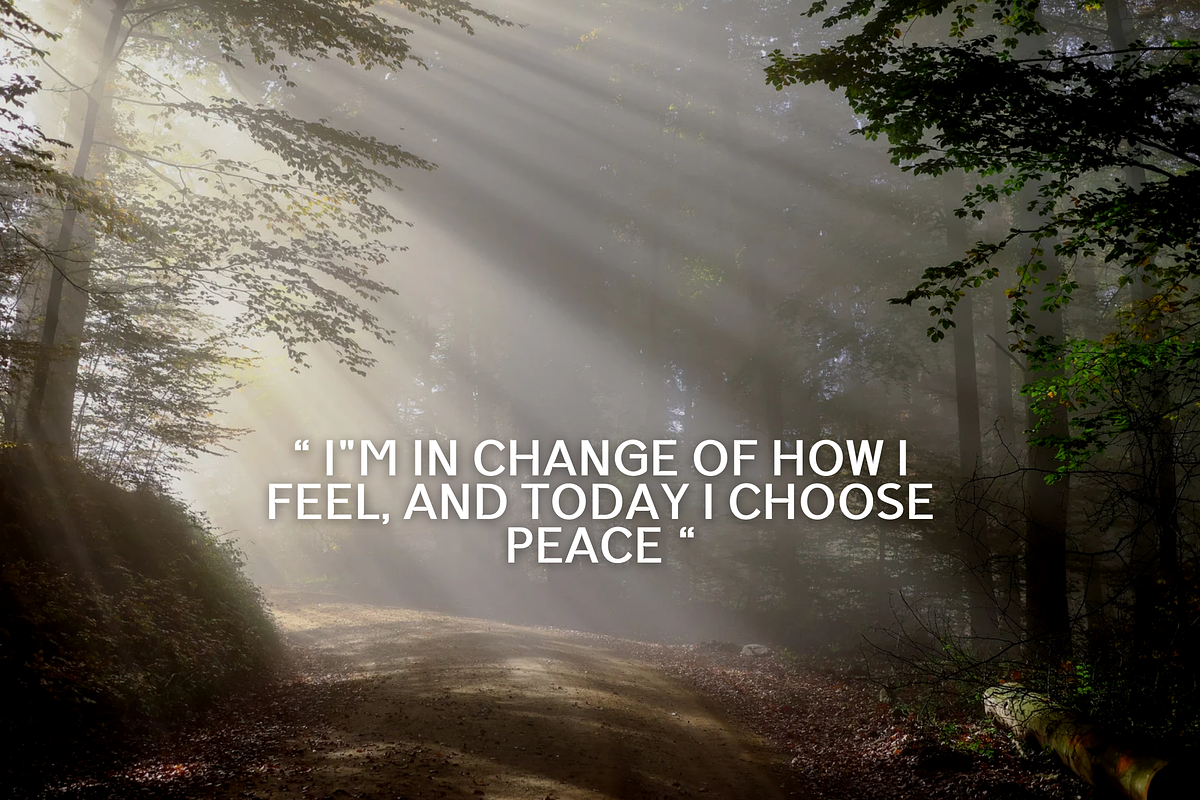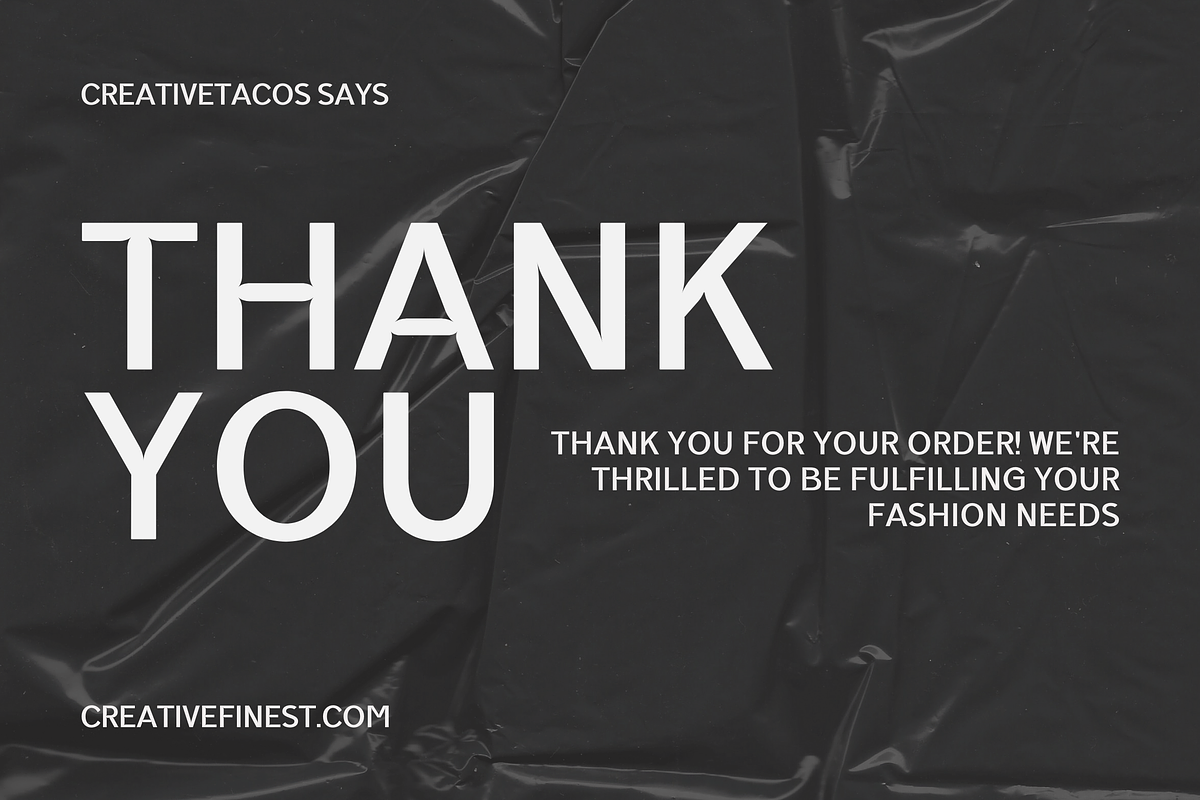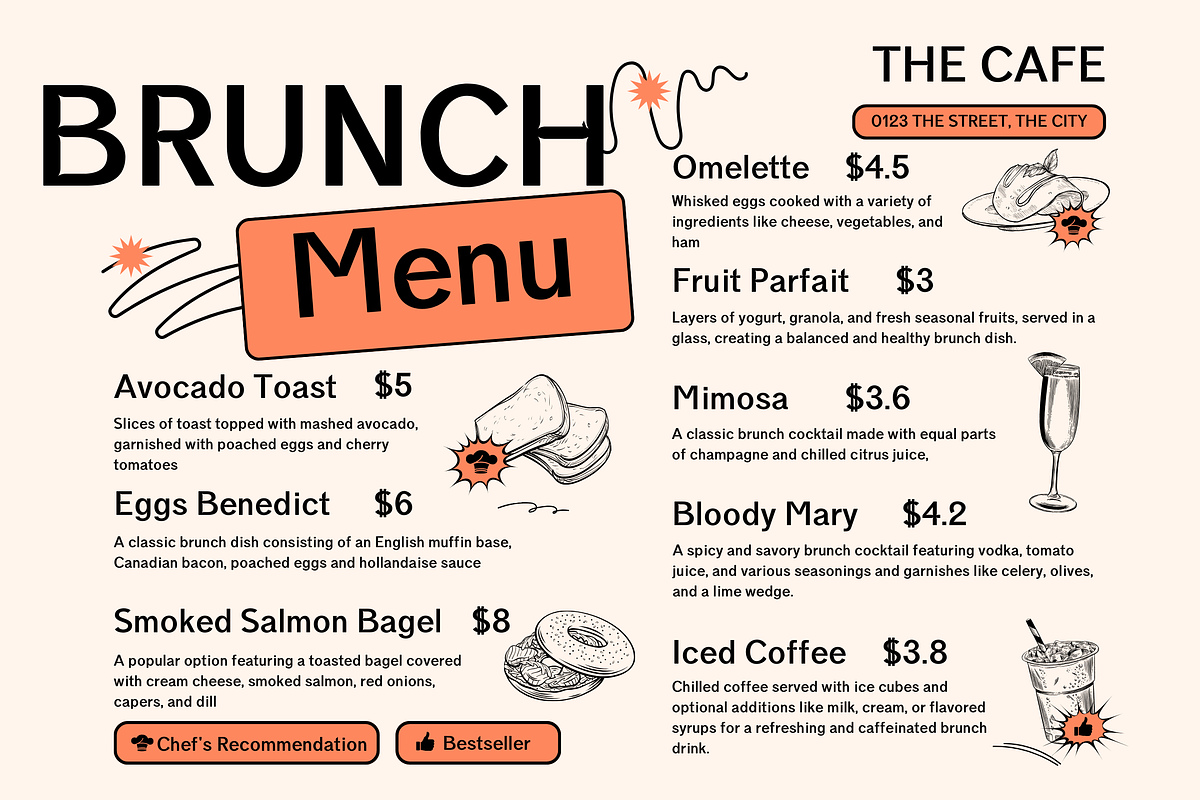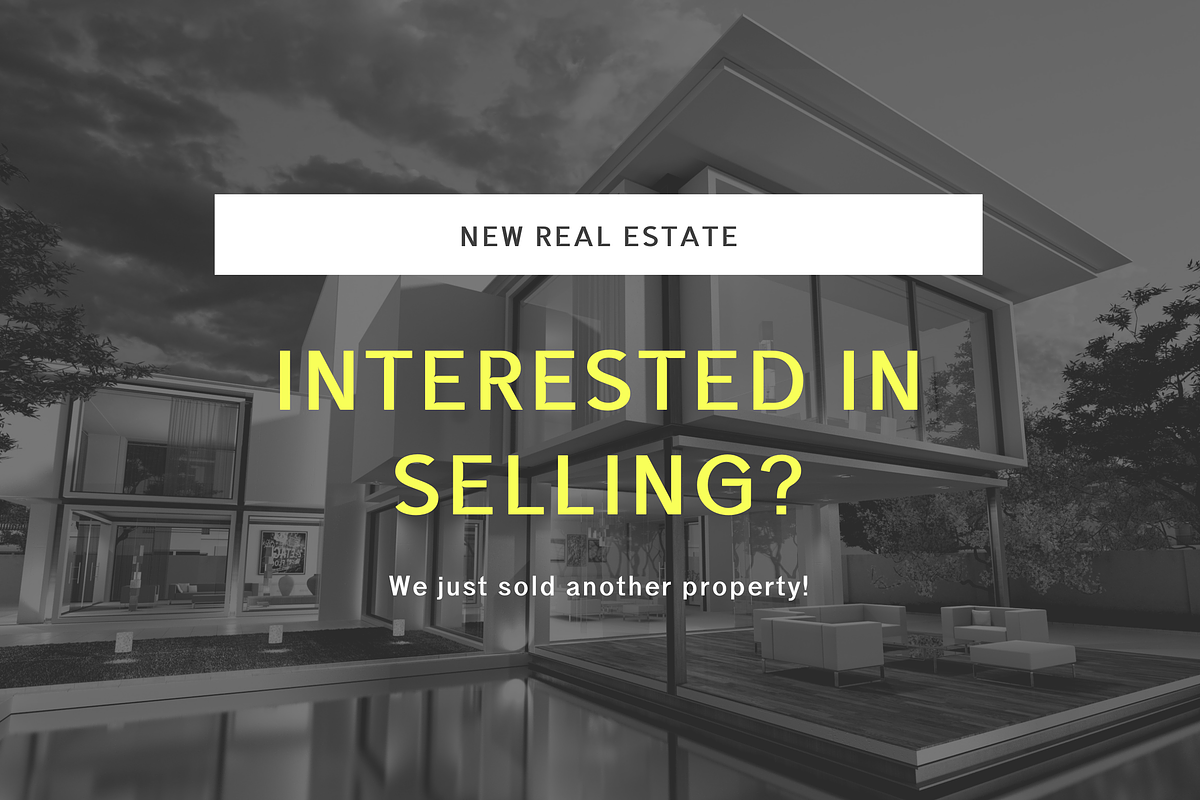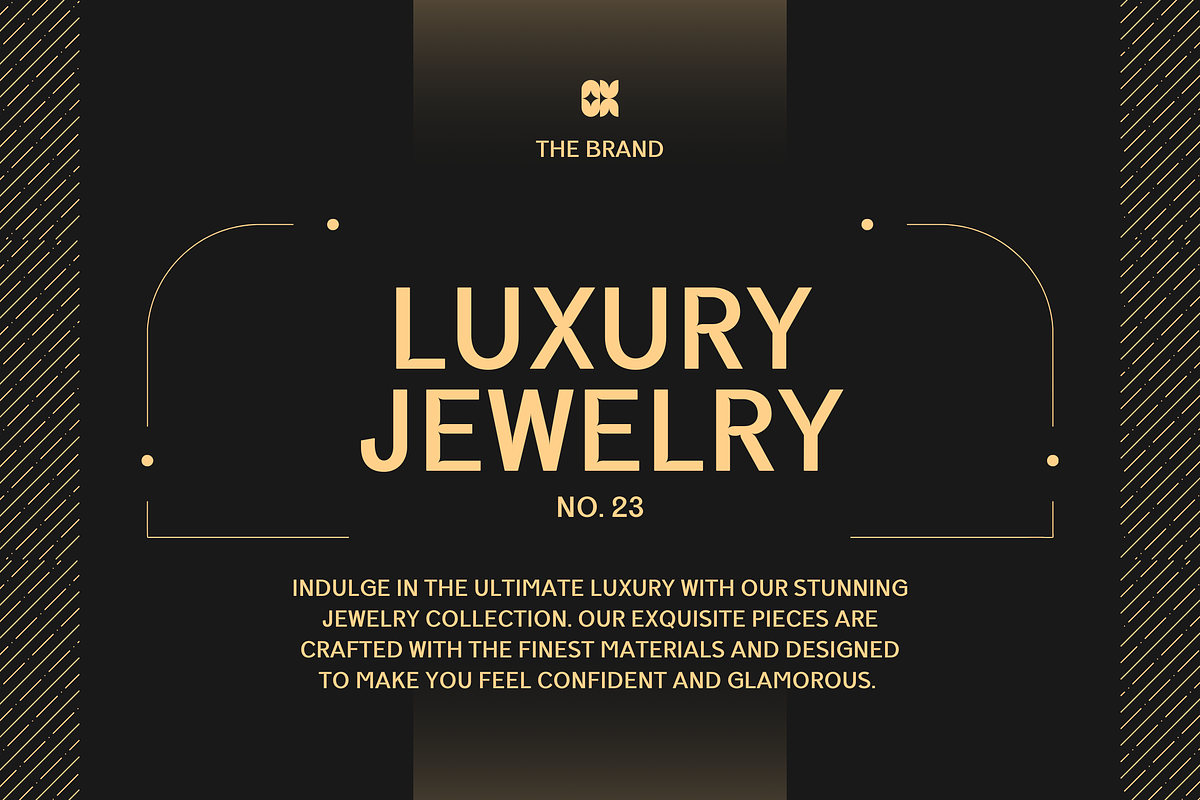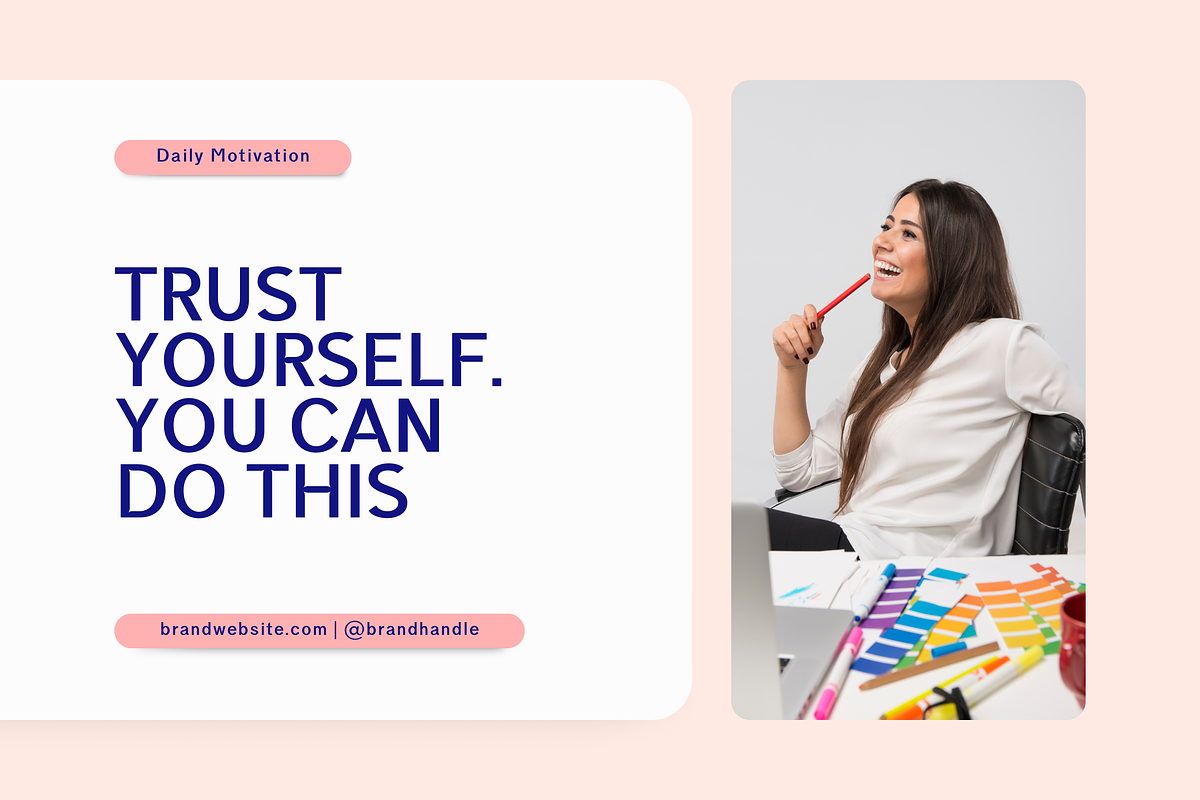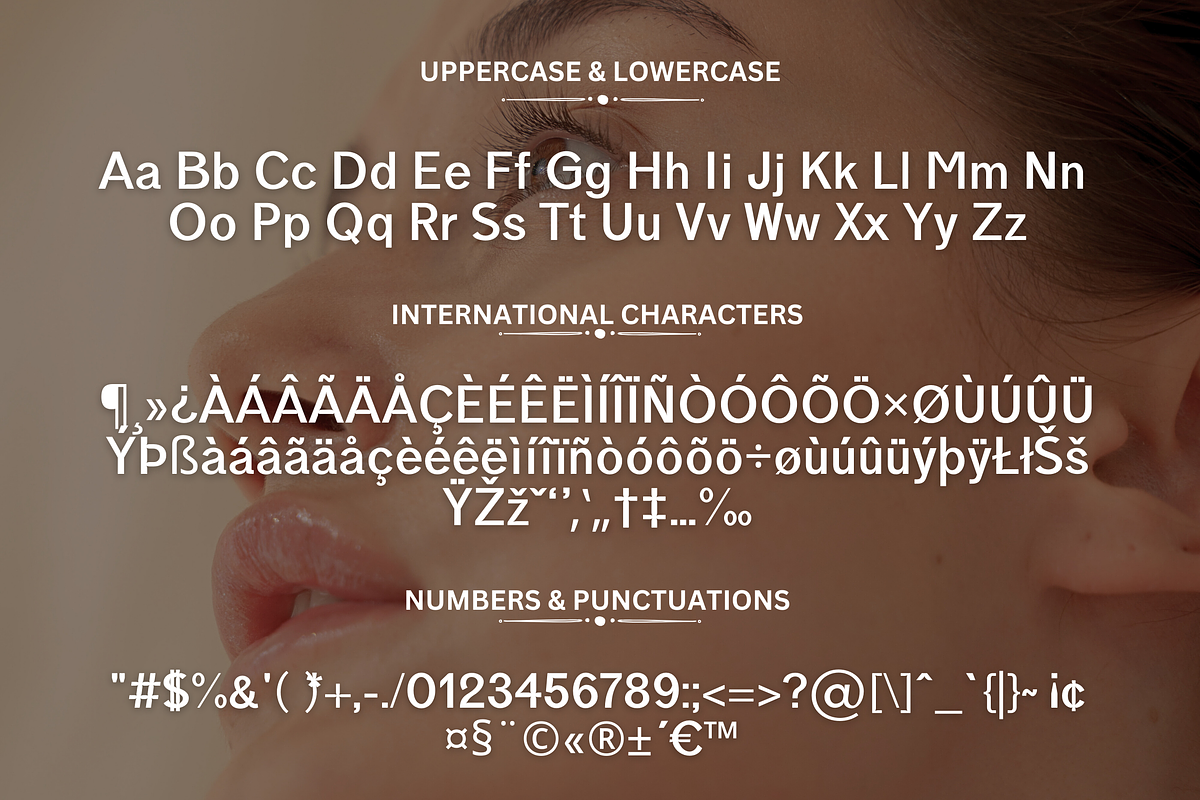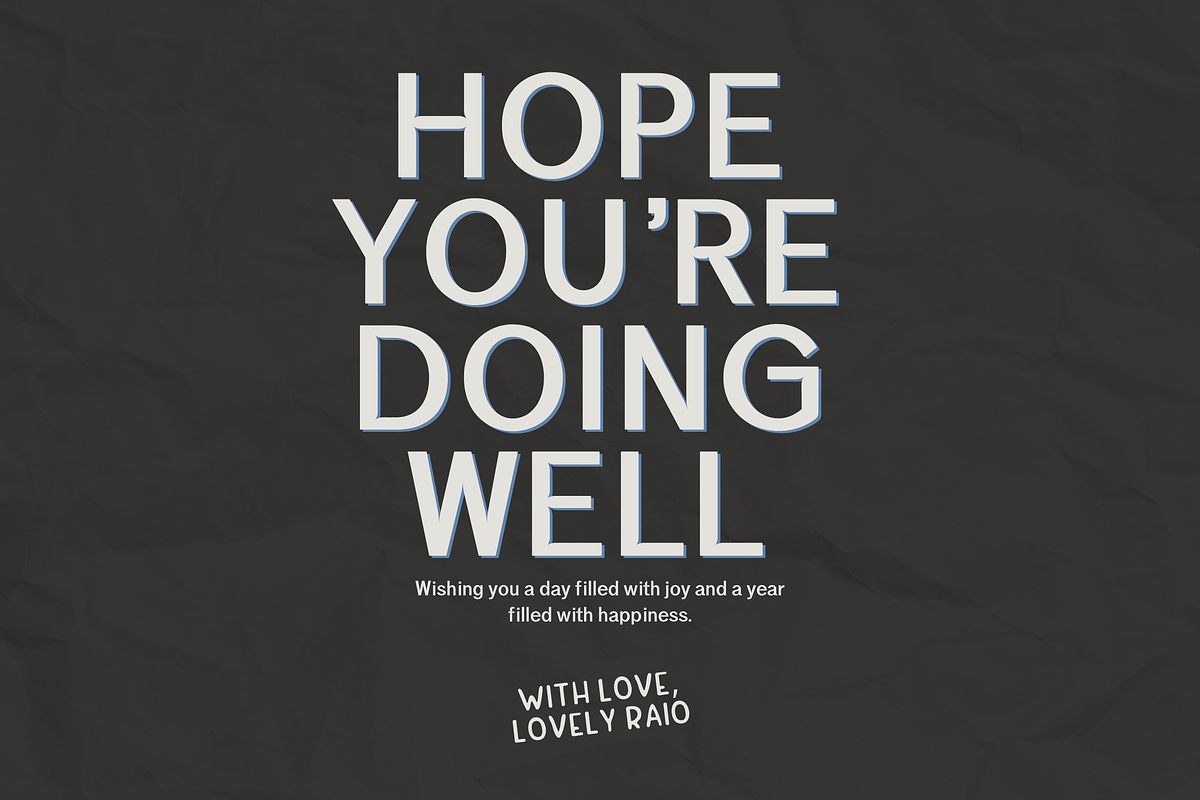
Titan Luxe Font - A Bold Typeface
Titan Luxe is a modern, bold sans-serif typeface designed for high-end branding, sleek packaging, and stylish editorial designs. With its clean lines and luxurious feel, this font adds a touch of sophistication to logos, invitations, brochures, and more.
- ✔ Multilingual support with international characters
Great for fashion, luxury branding, digital marketing, and elegant typography, Titan Luxe brings a timeless and premium look to any project.